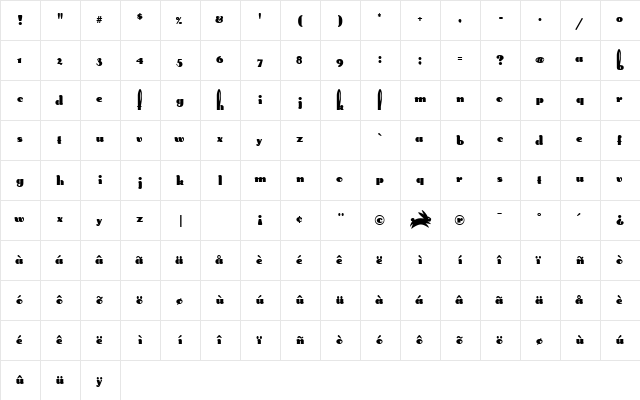
Long Ears MF Regular
Design Context for Long Ears MF Typeface
Long Ears MF is a composed and adaptable typeface that performs quietly and consistently across a wide range of design contexts.
Pro Tip: Use Long Ears MF in both headline and body roles to test its range before committing to a single application.